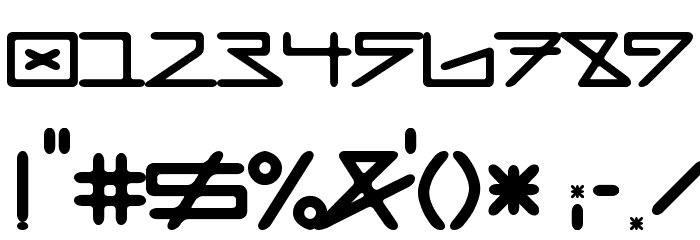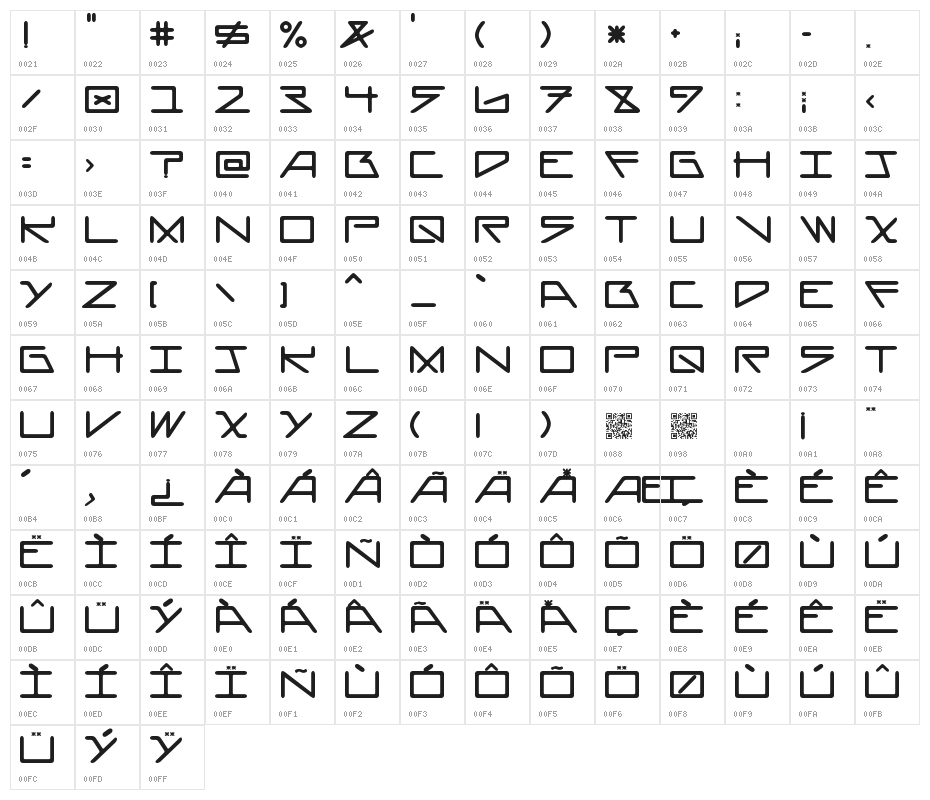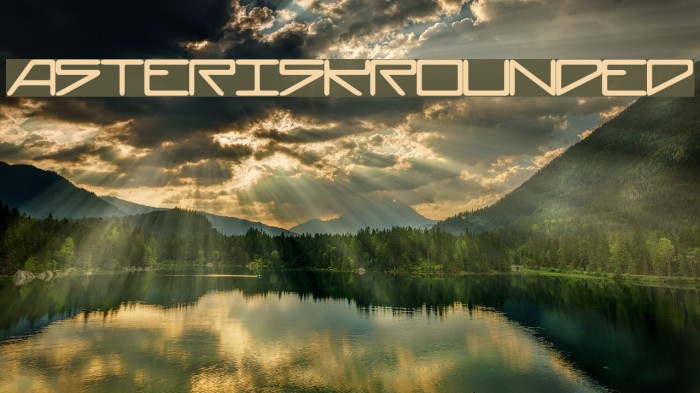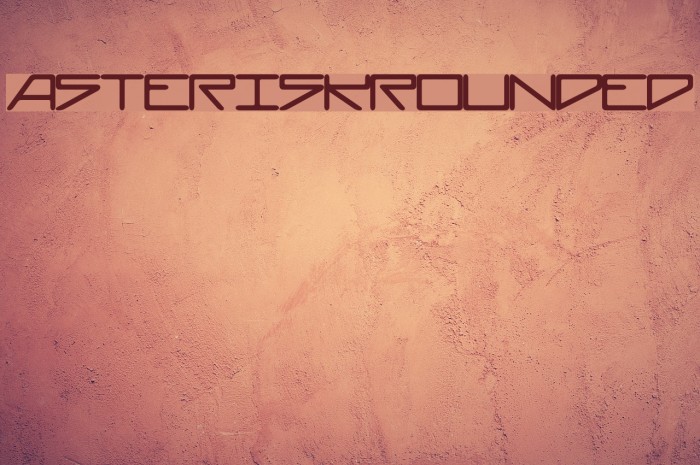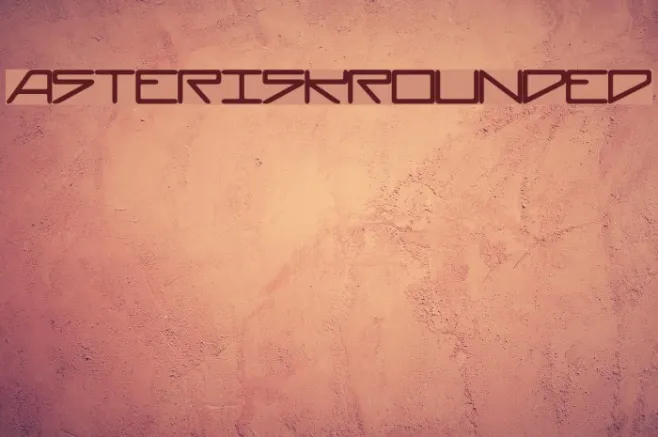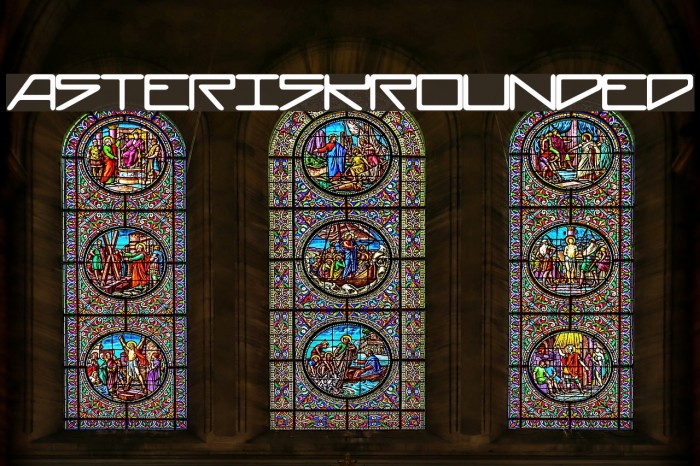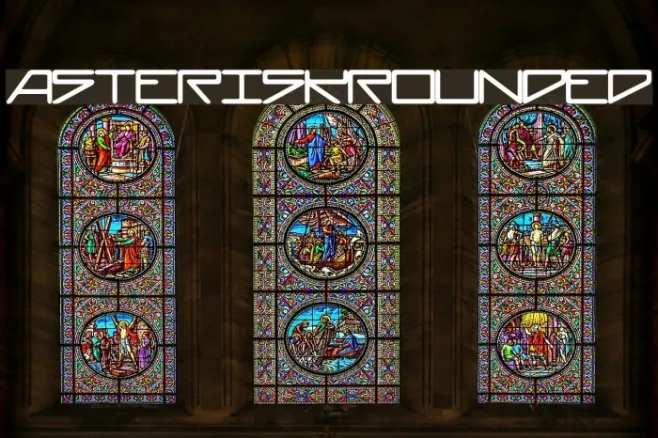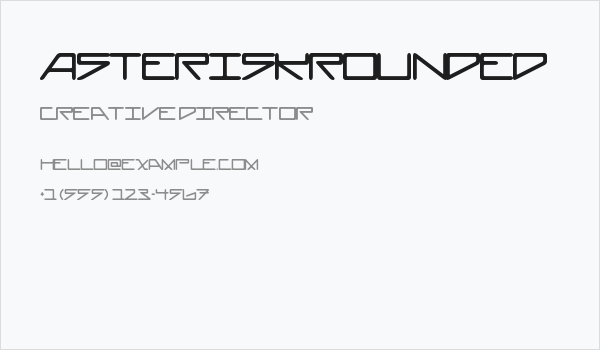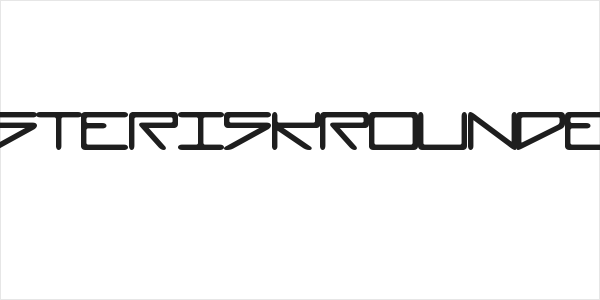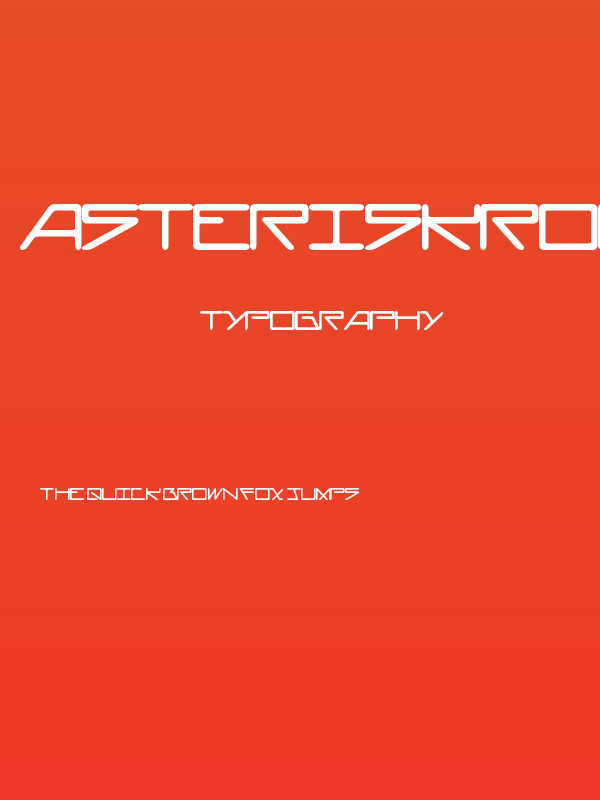
AsteriskRounded Font
AsteriskRounded Description
This font features a futuristic and geometric design with rounded edges, creating a unique and modern appearance. The characters are constructed with a consistent line thickness, giving the font a cohesive and uniform look. The angular and stylized letterforms are reminiscent of digital or sci-fi aesthetics, making it stand out with its distinct personality. The font maintains a balance between readability and artistic flair, suitable for creative and bold design projects. The special characters are designed with the same geometric style, ensuring visual harmony across all elements.
| Proposed Projects | Ideal for sci-fi themed designs, tech branding, video game interfaces, and modern posters. |